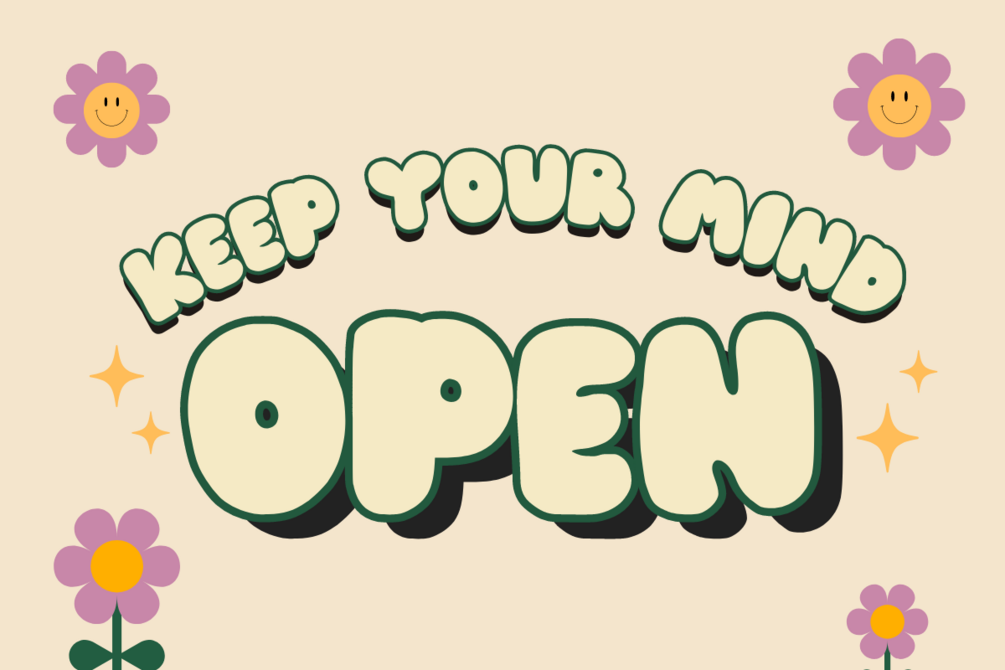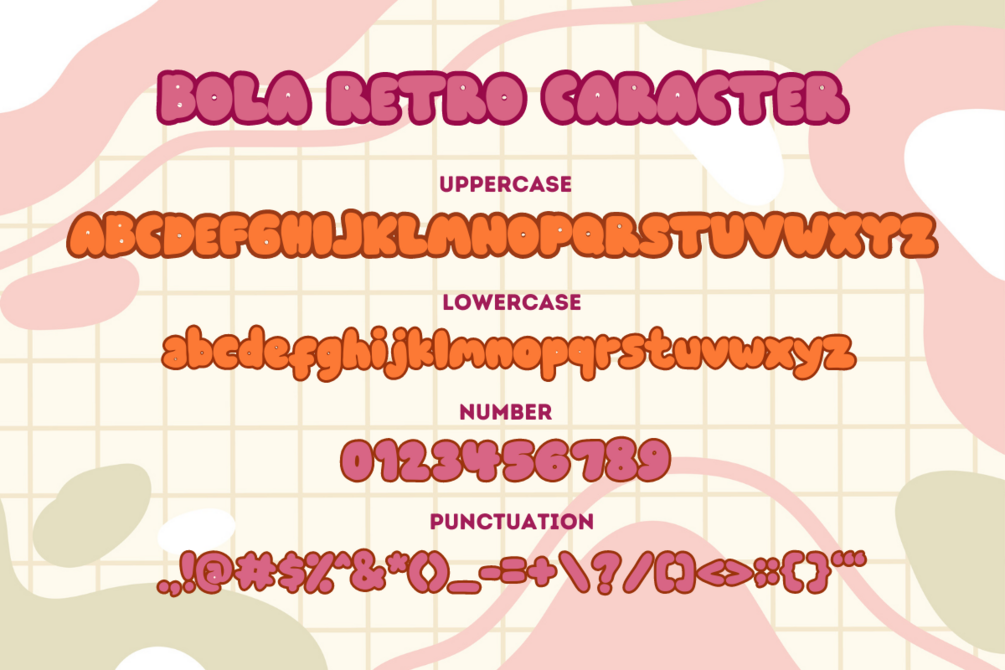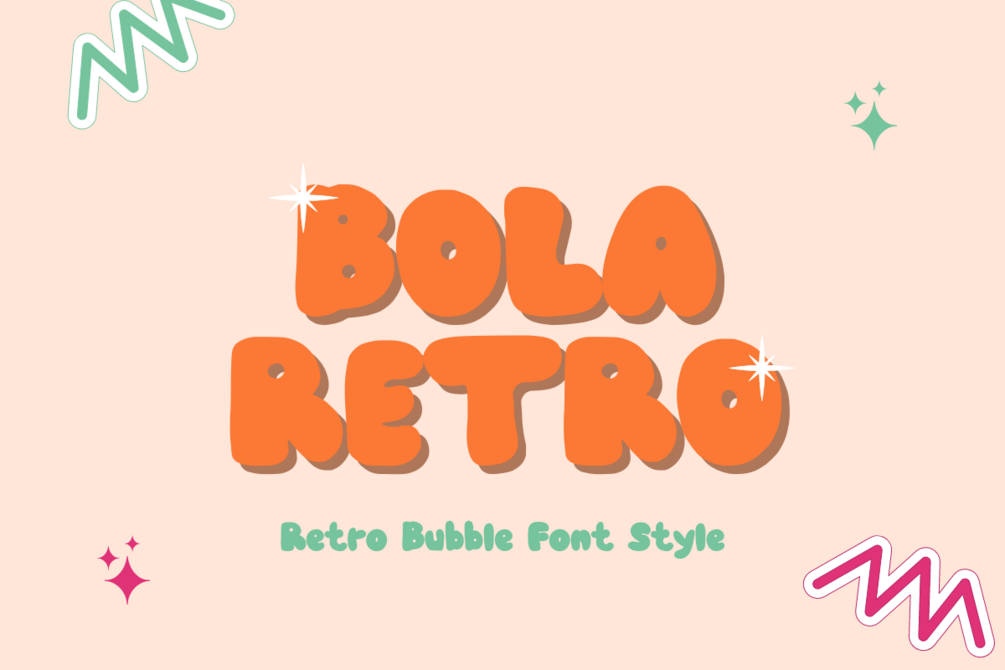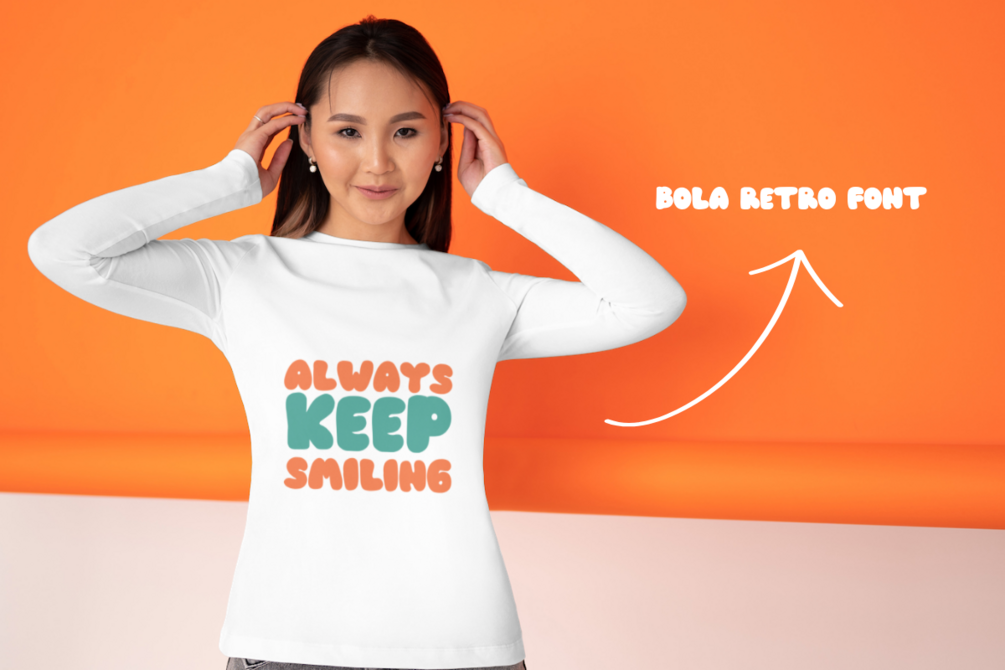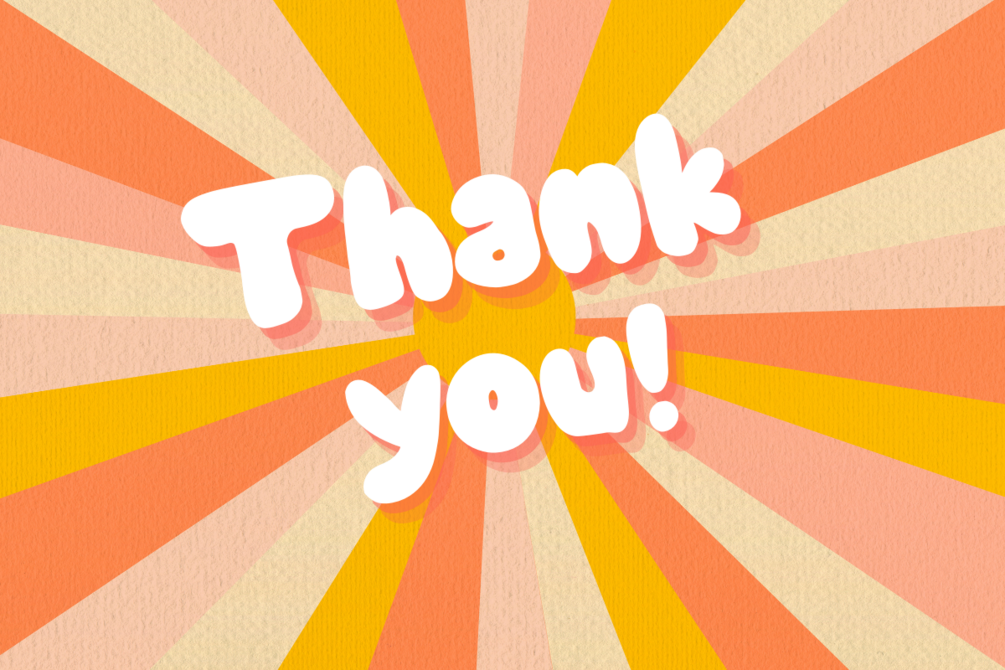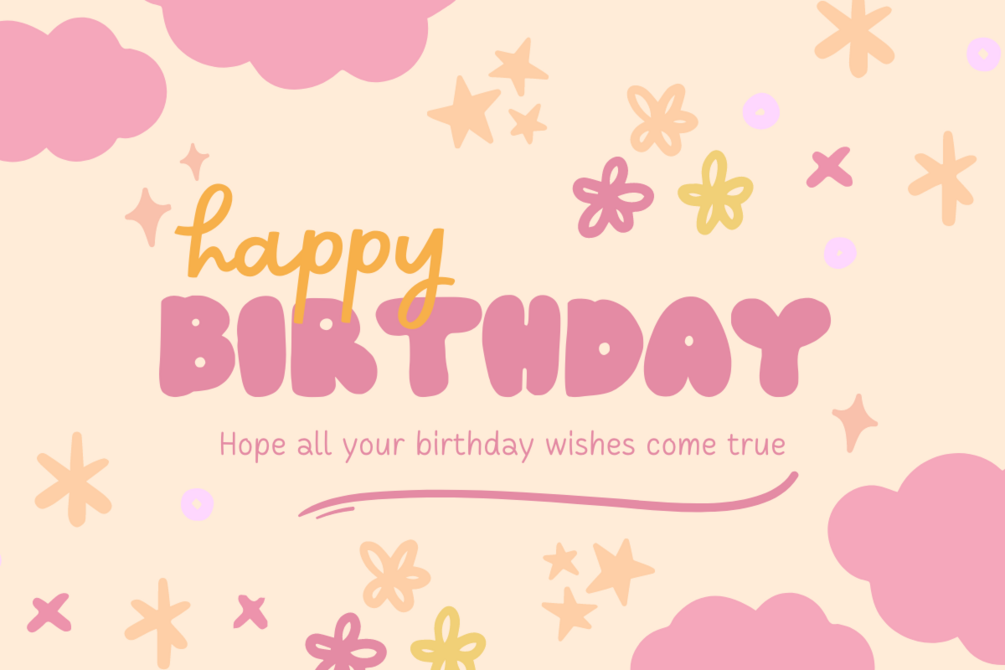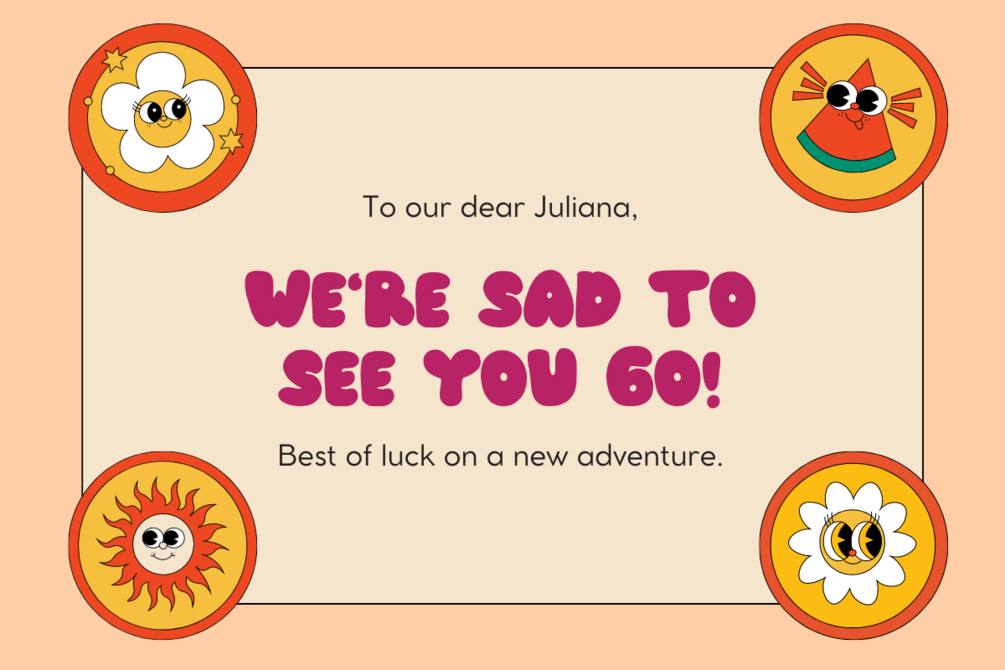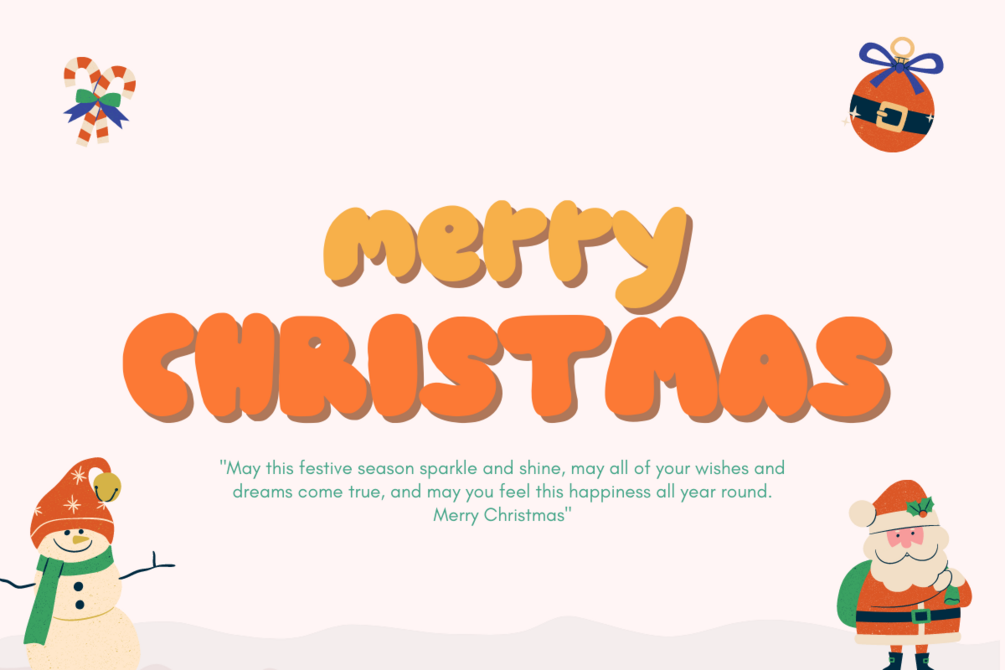
Bola Retro - Retro Bubble Font Style
Bola Retro is a fun and groovy display font that brings back the vibrant spirit of the retro era. Its playful curves and funky shapes exude a sense of nostalgia and excitement. Perfect for disco-inspired designs, party invitations, and retro-themed projects, Bola Retro adds a touch of vintage flair and grooviness to any creative endeavor.